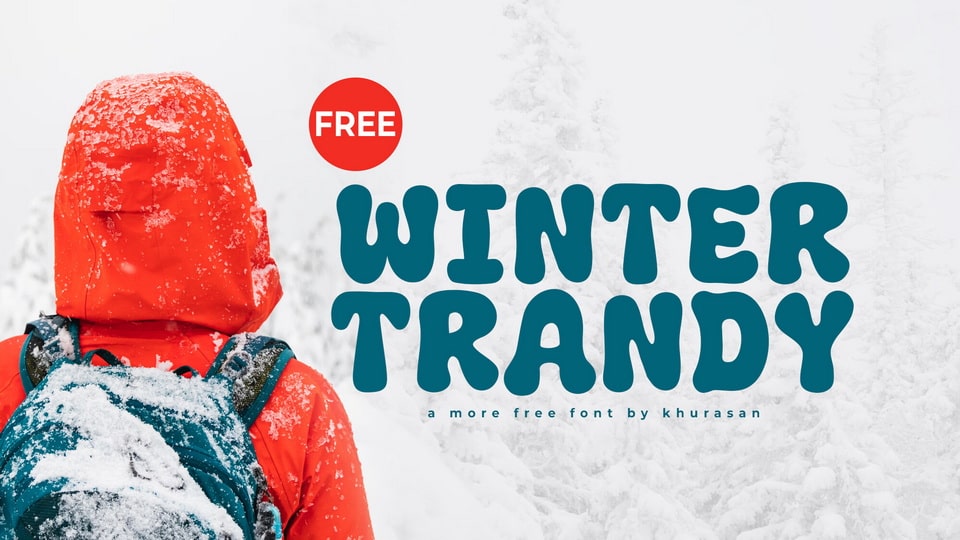
Download Winter Trendy font, a playful, rounded hand-crafted typeface that radiates warmth and approachability with its bold, smooth curves and lively shapes.